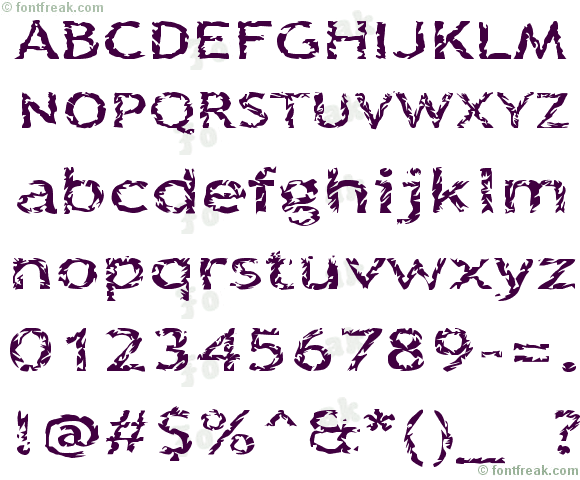
Quinquefoliolate
Quinquefoliolate is a distinctive decorative font created by Ray Larabie in 1997, characterized by its unique artistic flair. This freeware font belongs to the decorative category, making it an excellent choice for projects that require a touch of creativity and whimsy. The visual characteristics of the Quinquefoliolate font include a playful stroke weight that varies throughout, providing an organic, hand-crafted feel. The font features an intriguing contrast with jagged edges reminiscent of natural elements, enhancing its decorative appeal. The spacing is thoughtfully designed, ensuring readability while still allowing the unique letterforms to shine.
This font is particularly well-suited for a variety of creative applications. It can be effectively used for wedding invitations, where its unique style adds a personal touch to the occasion. Additionally, Quinquefoliolate works wonderfully for movie posters, especially for films in the fantasy or adventure genre, as it draws attention and evokes curiosity. Restaurant menus can also benefit from this font, especially for establishments that focus on artisanal or organic offerings, where the font’s natural aesthetic complements the theme. Furthermore, content creators looking to make their social media graphics stand out will find Quinquefoliolate to be a perfect fit.
Target audiences for this font include graphic designers seeking to add flair to their projects, small business owners aiming to convey a unique brand identity, and content creators who want to captivate their audience with eye-catching visuals. The Quinquefoliolate font free download makes it accessible to anyone looking to elevate their design work. Overall, this font stands out due to its quirky yet sophisticated style, making it a versatile choice for those who wish to infuse their designs with personality and charm.